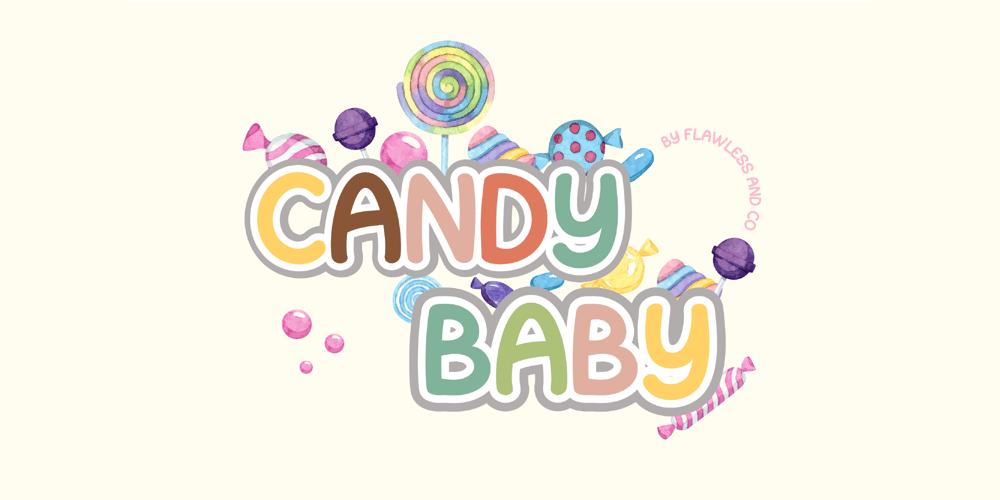
CANDY BABY Font Family was designed by Achmad Yani and published by Flawlessandco. CANDY BABY contains 1 styles and family package options. Introducing “Candy Baby” – a delightful and whimsical font that adds a touch of playfulness to your designs. With its unique and charismatic letterforms, Candy Baby brings a sense of joy and lightheartedness to any project. There’s some connected letters and some alternates that suitable for any graphic designs such as branding materials, t-shirt, print, business cards, logo, poster, t-shirt, photography, quotes .etcThis font support for some multilingual. Also contains uppercase A-Z and lowercase a-z, alternate character, numbers 0-9, and some punctuation.If you need help, just write me! Thanks so much for checking out my shop!